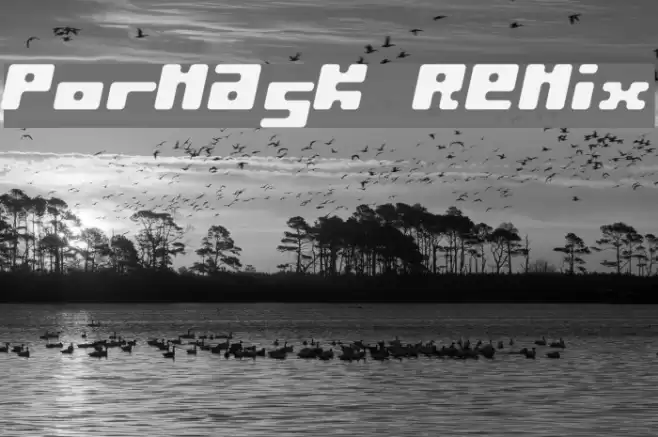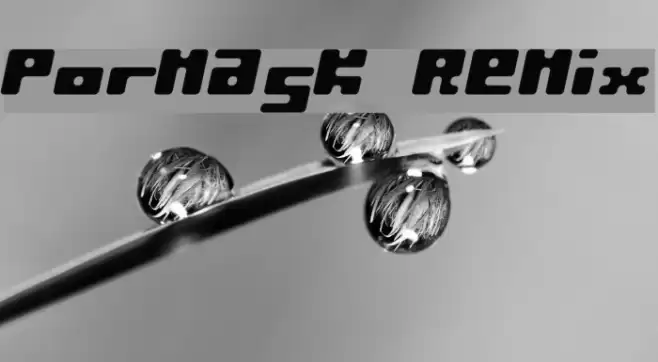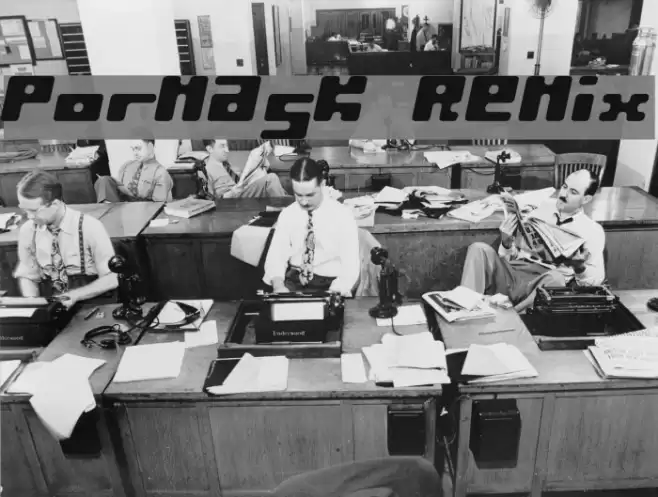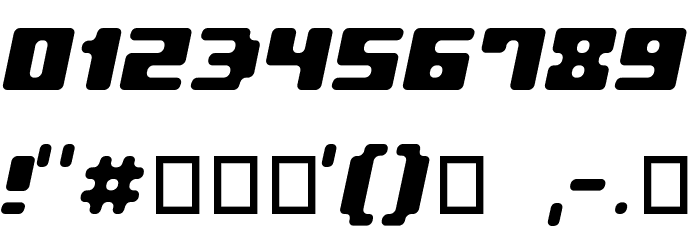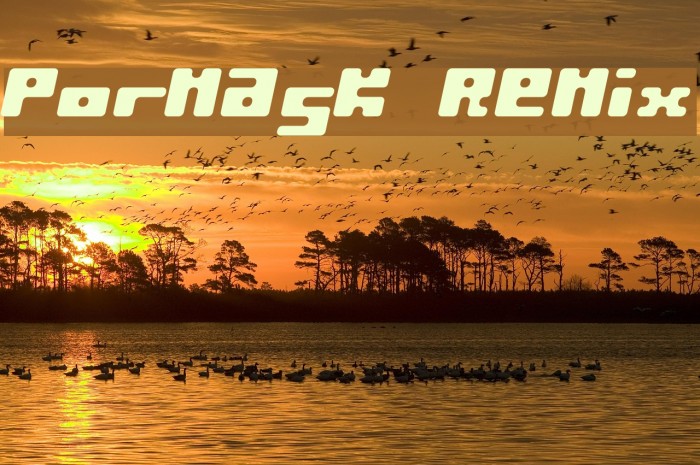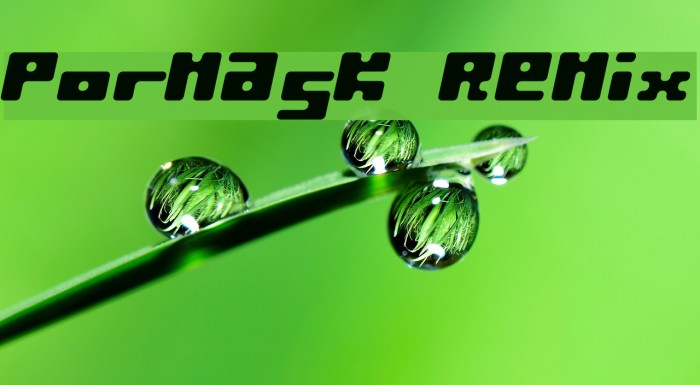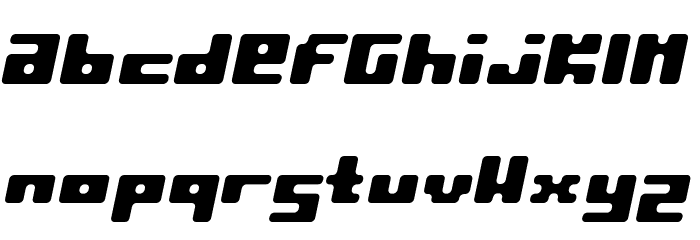
Pormask Remix Font
Pormask Remix Description
This font features a bold, geometric style with a strong presence. The characters are blocky and have a futuristic feel, characterized by their rounded edges and uniform thickness. The uppercase and lowercase letters maintain a consistent design, creating a cohesive look. The numerals and special characters follow the same design principles, ensuring uniformity across all glyphs. This font's distinct style makes it suitable for attention-grabbing designs.
A bold, geometric font with a futuristic, blocky style from Uncategorized fonts.
- Proposed Projects: Ideal for sci-fi themed projects, video game titles, posters, and branding that requires a modern and bold aesthetic.